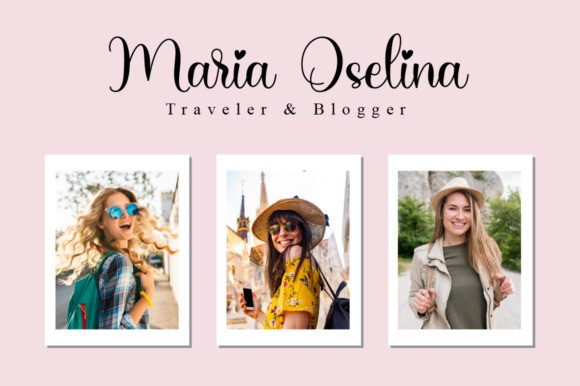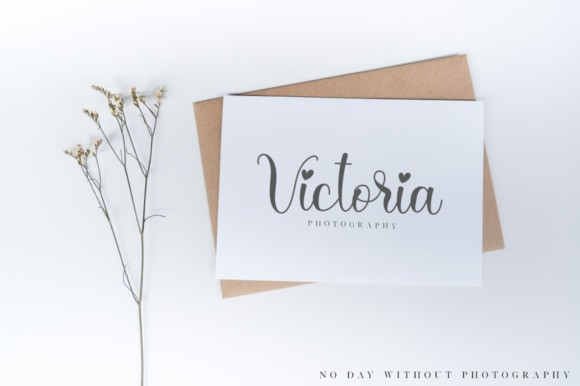
Ashintta Script Font
Ashintta is a delicate and elegant handwritten font. Its distinct and well balanced letters make this font a masterpiece. This font is PUA encoded which means you can access all glyphs and swashes with ease!